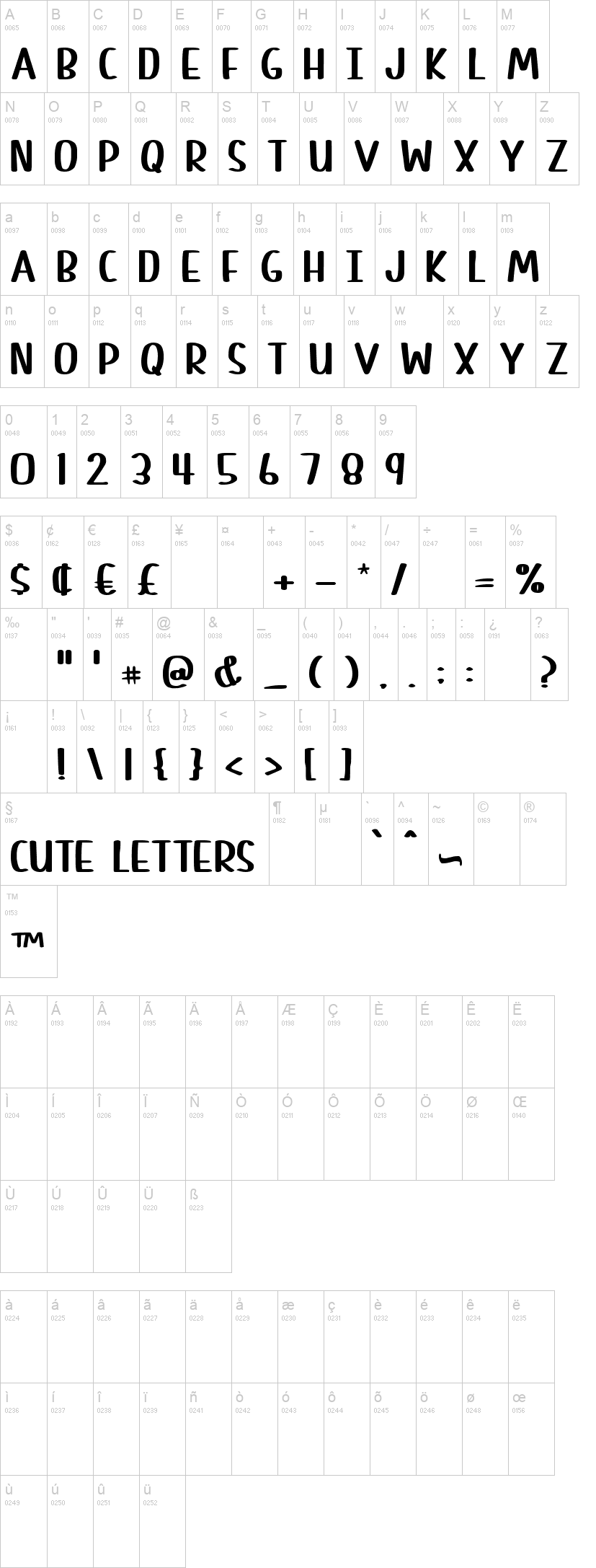
Cute Letters Italic.ttfNote of the authorCute Letters is a fun and friendly display font, that can easily stand out. Simple but with a strong visual effect, this font will instantly make your creation more appealing than any others.